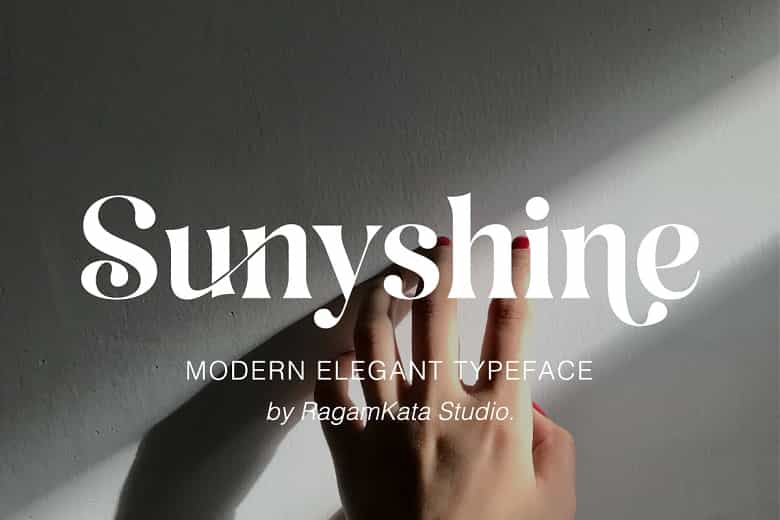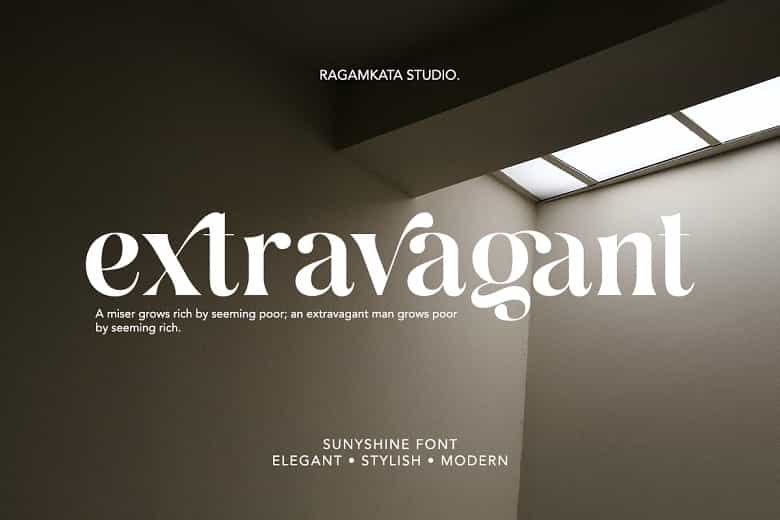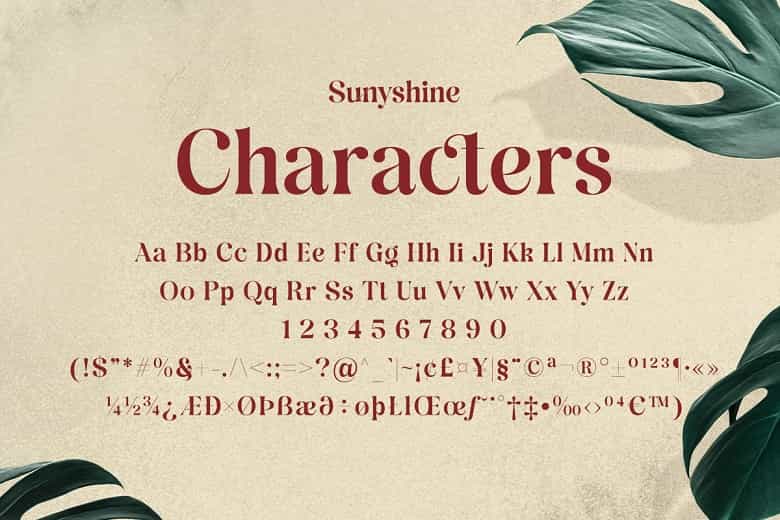
Sunyshine is a modern elegant serif font that will bring some light to your project. Having a perfect shape of the letters, ligatures, and having graceful curves will give grace to your design. This typeface is a perfect for a luxury logo, classy editorial designs, fashion brand and promotion, and much more.